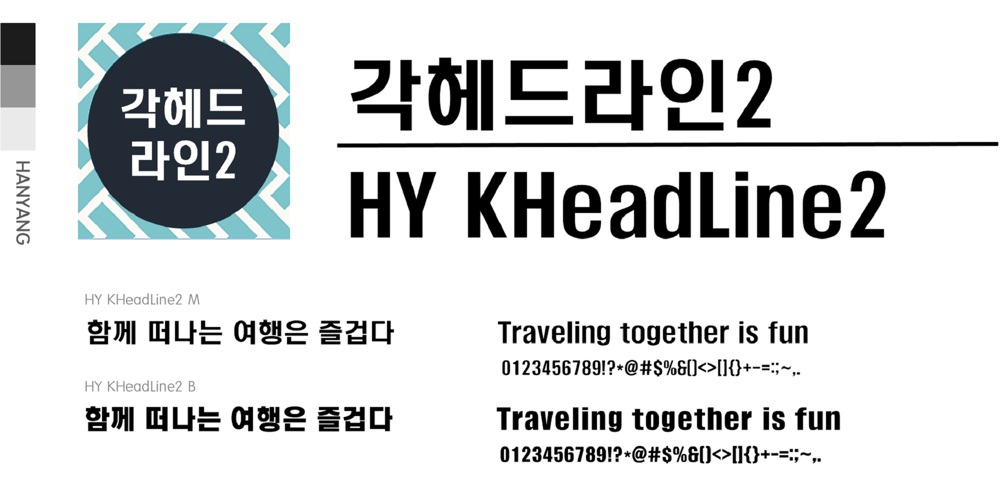
HY KHeadLine2 Font Family was designed by font hy and published by HY Font. HY KHeadLine2 contains 2 styles and family package options. Each Headline 2 is a font created by securing the existing headline. It is a very thick font with full text lines at the top and bottom.Although it is thick, it is easy to read due to the large character elements that secure internal space.It’s okay for text, but it’s most effective for products that attract a lot of attention.